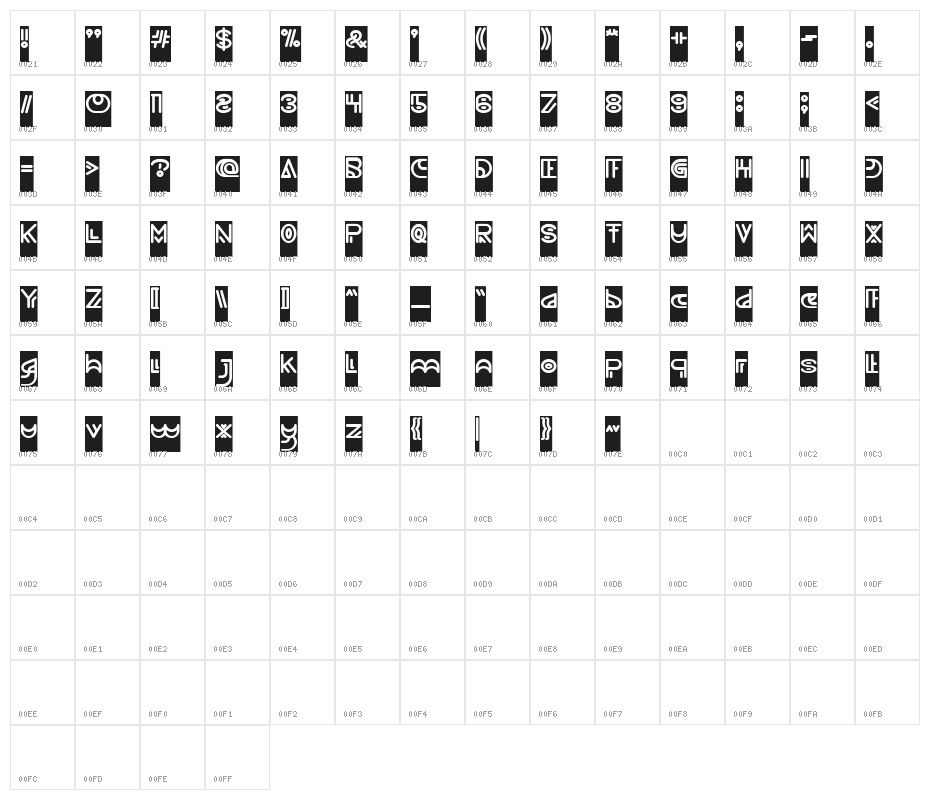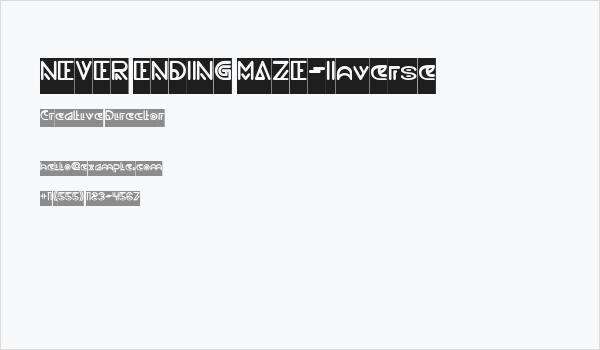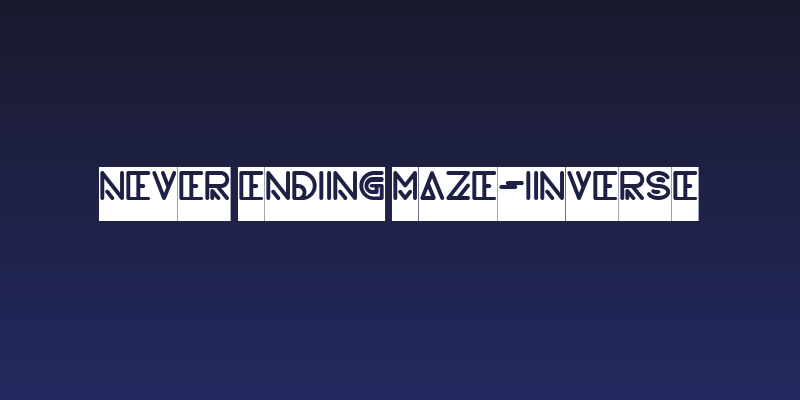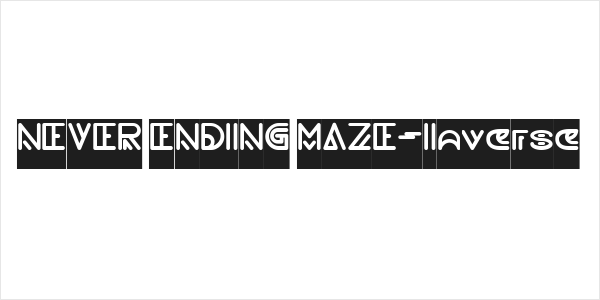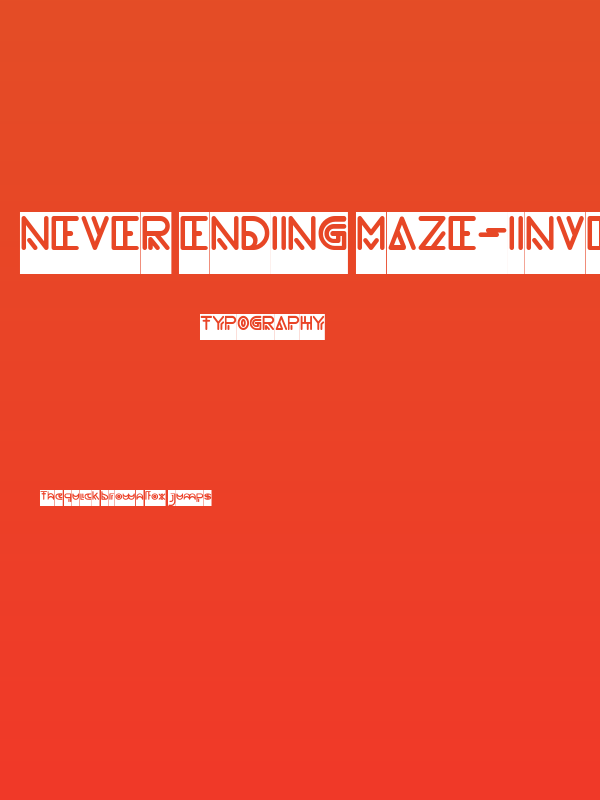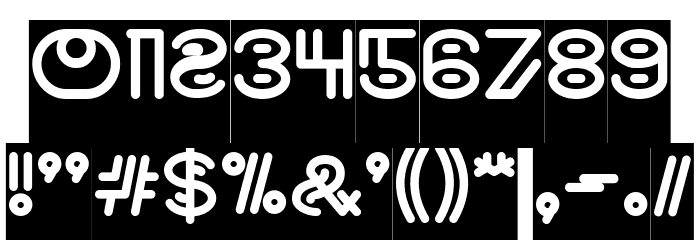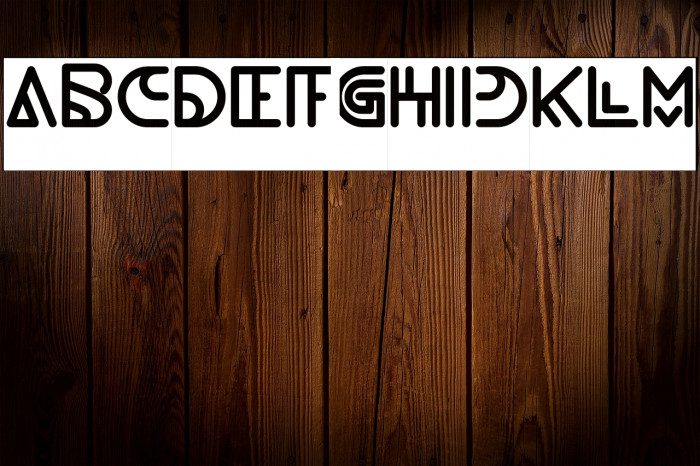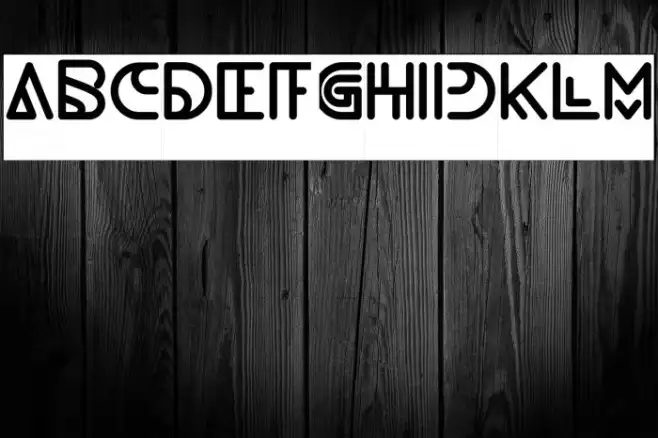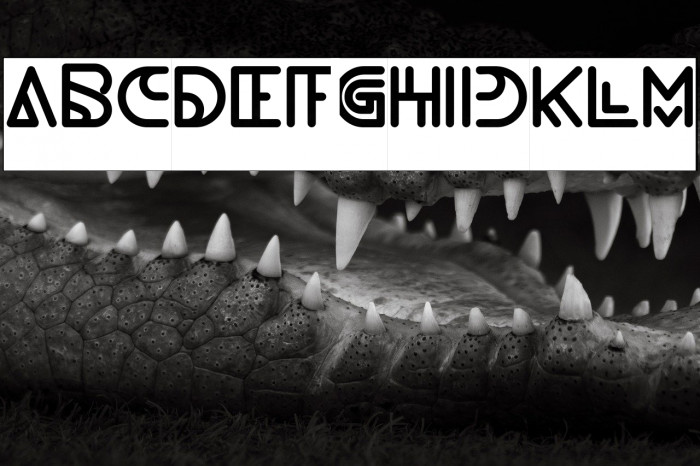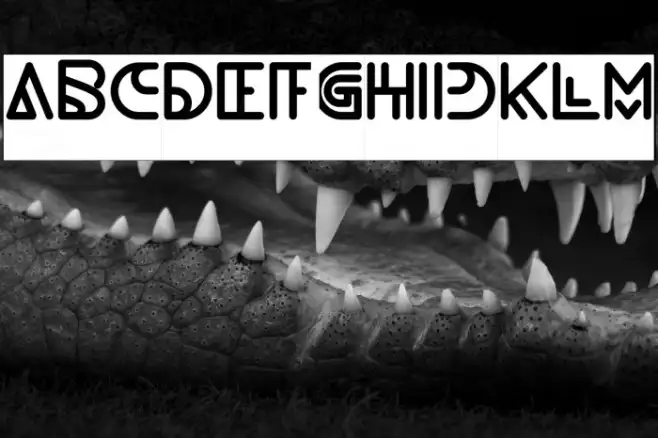
NEVER ENDING MAZE-Inverse Font
NEVER ENDING MAZE-Inverse Description
This font features a unique and bold design with a futuristic and geometric aesthetic. The characters are composed of thick, rounded lines that create a maze-like appearance, giving it a distinctive and modern look. The uppercase and lowercase letters maintain a consistent style, with some characters having an almost symmetrical design. The numbers and special characters follow the same bold and rounded theme, ensuring uniformity across the font. This font's style is eye-catching and would stand out in any design project.
| Proposed Projects | Ideal for sci-fi themed projects, video game titles, posters, and branding that requires a modern and distinctive look. |